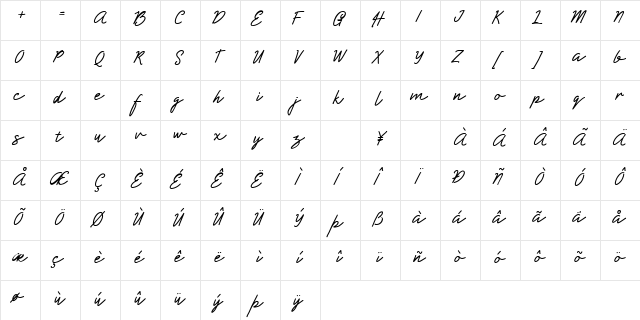
Shearlight Regular
Design Context for Shearlight Typeface
Shearlight is a composed and adaptable typeface that performs quietly and consistently across a wide range of design contexts. Its slender proportions lend an understated elegance to any composition.